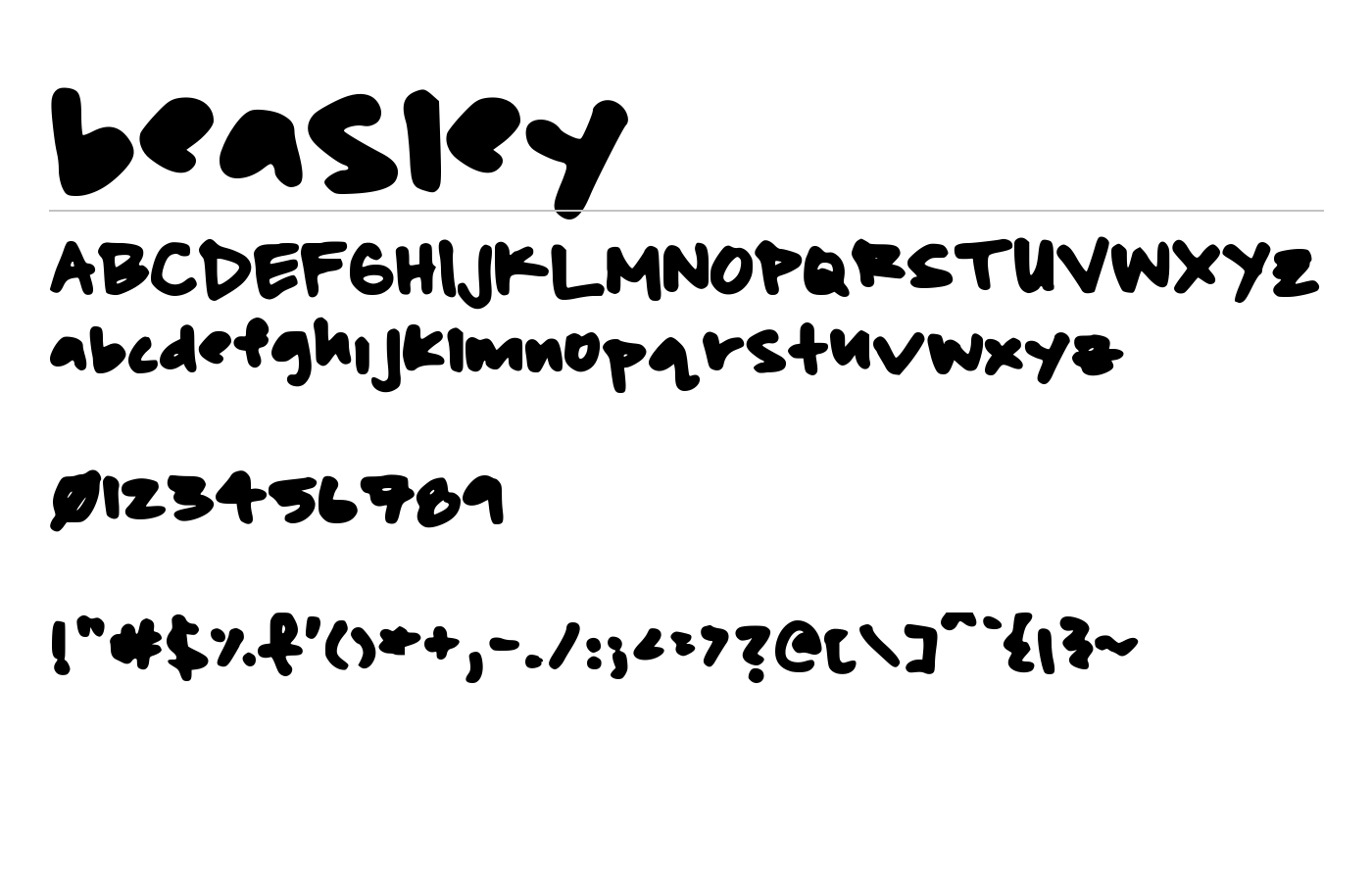
Beasley Font is a playful, hand-drawn sans serif typeface with bold, rounded strokes and an informal, casual feel. Its irregular letterforms and lively style make it perfect for creative projects, children’s materials, or any design needing a friendly, approachable touch. This font works well in headlines, logos, and packaging where a fun, energetic personality is desired.
beasley Font
About beasley Font